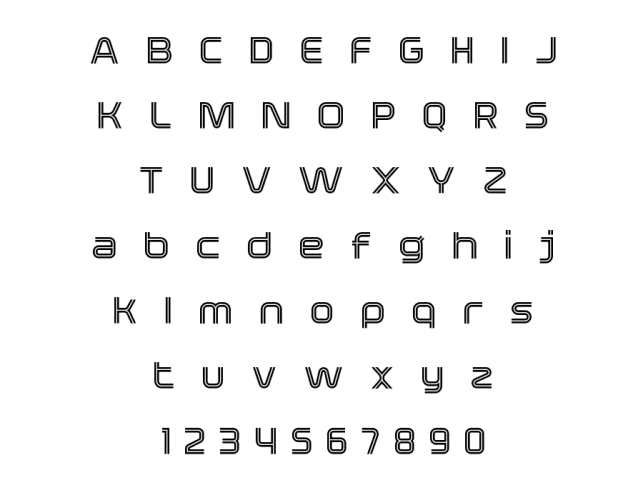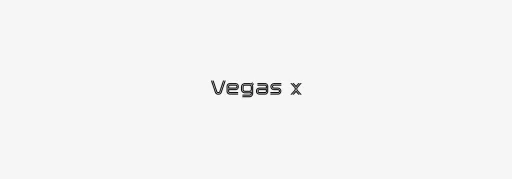
Vegas x Font
Vegas X Font brings a bold and flashy style inspired by casino lights and nightlife themes. Its sharp edges and strong shapes create an eye-catching look that works well for posters, gaming designs, logos, and promotional artwork. Designers choose Vegas X when they want a loud, modern, and high-energy feel in their projects.
Thumbnails and covers
Vegas x Font is built to be recognised small. Three words, high contrast, and it survives being scaled to a phone screen.
Event and match posters
Display letters at full width make a date and a name readable across a room, which is all a poster has to do.
Merch and streetwear
Heavy display shapes print cleanly on fabric and stay legible when the garment moves.
What kind of work does Vegas x Font suit?
It sits in the Display Fonts group and reads as bold, branding, display, display fonts. That makes it a candidate wherever those qualities help: headings, packaging, social graphics and brand work. Set it at the size you plan to use before deciding.